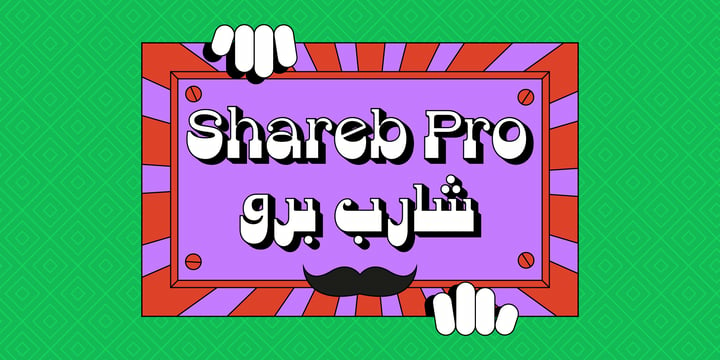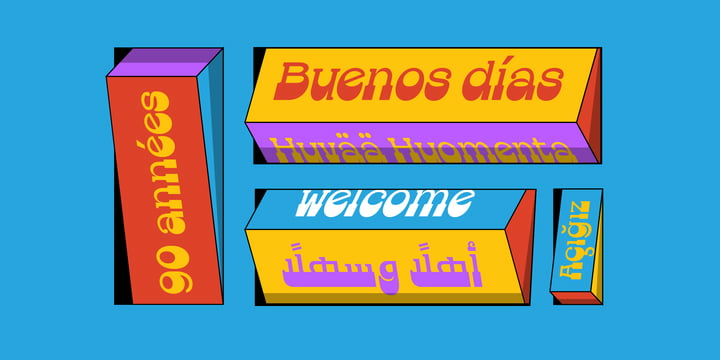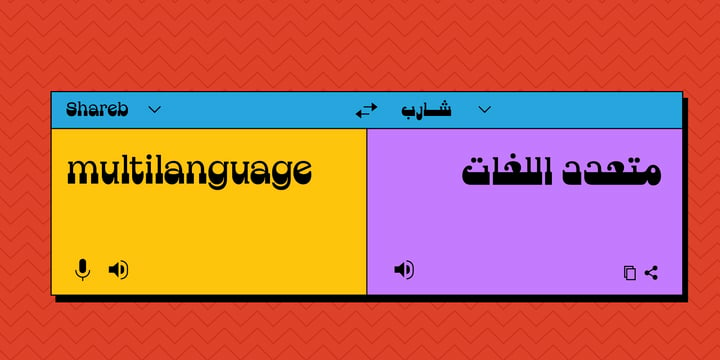
Shareb Pro Arabic Font
Shareb Pro Arabic FontShareb font was initially designed with a different style compared to other Arabic typefaces. It was released as a free display typeface and went popular. Therefore, we decided to take it to the next level. Accordingly, we worked on the Arabic letters again, enhancing and fixing them. We also added new features like stylistic sets, ligatures, and a complete Latin set of letters so that the font can be used in the most needed languages. Now, we have a more professional, refined, and larger display typeface that can be used in more great projects.